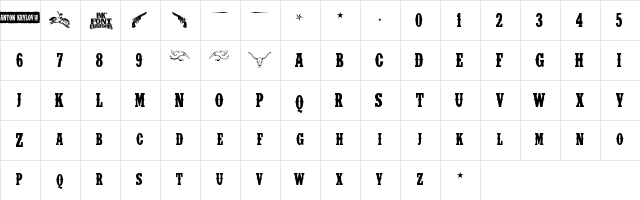
IFC INSANE RODEO Regular
Design Context for IFC INSANE RODEO Typeface
IFC INSANE RODEO takes a measured approach to typography — its balanced proportions and neutral character make it a reliable workhorse for both digital and print work.